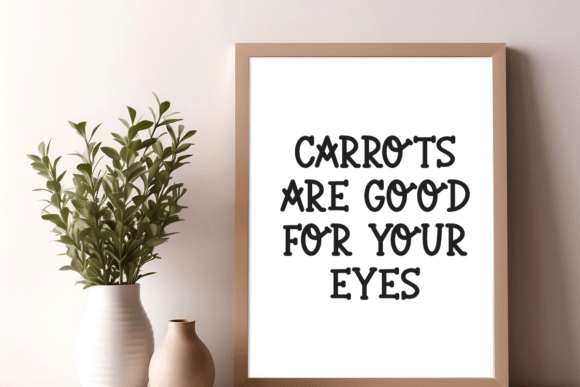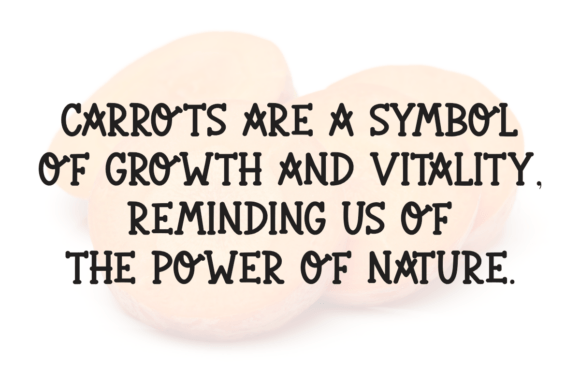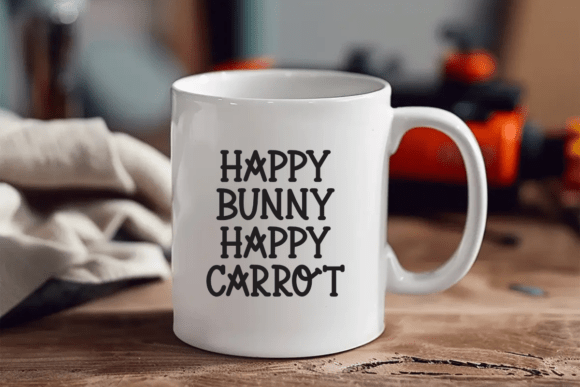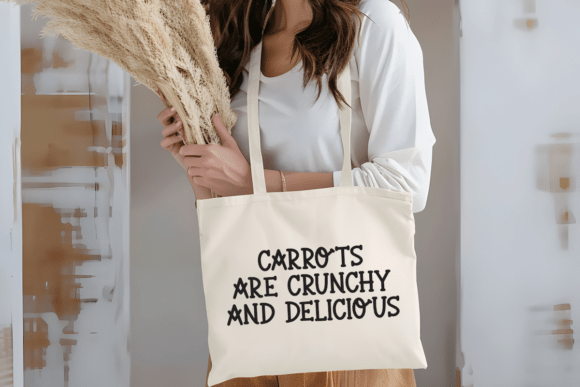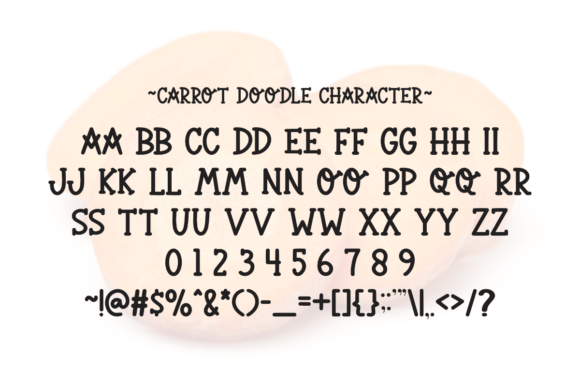
Unleash the Joy in Your Designs
Do you remember the thrill of creating your first children’s book or designing a poster for a fun event? The excitement of bringing a new idea to life, of watching it come together with every stroke of the pen or click of the mouse? For many designers, those moments are the spark that ignites a passion for creative work.
That’s where the Carrot Doodle Font comes in – a quirky and cheerful slab serif font designed to bring a touch of whimsy and fun to your designs. Perfect for storybooks, children’s games, and posters, this font is bold, eye-catching, and ready to make your design smile. With its playful proportions and chunky slab ends, Carrot Doodle Font is a valuable addition to any designer’s toolkit, adding a dose of joy and personality to any project.
Carrot Doodle Font Key Features
- Character Count: 250+ unique characters, including uppercase and lowercase letters, numbers, and symbols
- Unique Characteristics: Hand-drawn doodle design, playful and whimsical feel, suitable for children’s books, greeting cards, and other creative projects
- Font Style: Script, handwritten, and doodle font styles available, with varying levels of boldness and italicization
Carrot Doodle Font Review
Overall, I found the Carrot Doodle Font to be a delightful and whimsical addition to any design project. The font’s quirky charm and playful nature make it perfect for creative and artistic applications.
- Unique and expressive character designs
- Well-suited for illustrations, graphics, and other creative projects
- Fun and engaging style that adds personality to text
One of the standout features of the Carrot Doodle Font is its flexibility. It can be used for both digital and print projects, making it a versatile choice for designers.
- May not be suitable for formal or professional applications due to its playful nature
- Character set may not be as comprehensive as other fonts, potentially limiting its use in certain contexts
- May require additional styling to achieve a cohesive look in certain projects
Despite its limitations, I would still recommend the Carrot Doodle Font for designers looking to add a touch of whimsy and personality to their projects.
Practical Application Guide: Carrot Doodle Font
Tips for Getting the Most Out of the Carrot Doodle Font
Experiment with different font sizes, colors, and combinations to achieve the desired look. Use the font in combination with other design elements, such as shapes and graphics, to create a unique and eye-catching design. Consider using the font in conjunction with other playful and whimsical design elements to create a cohesive and engaging design.
The Carrot Doodle Font is ideal for use in children’s party invitations, nursery decor, and other playful designs. It can also be used in food and beverage branding, such as for juice bars or cafes. Additionally, the font can be used in educational materials, such as workbooks and activity sheets, to create a fun and engaging learning environment.